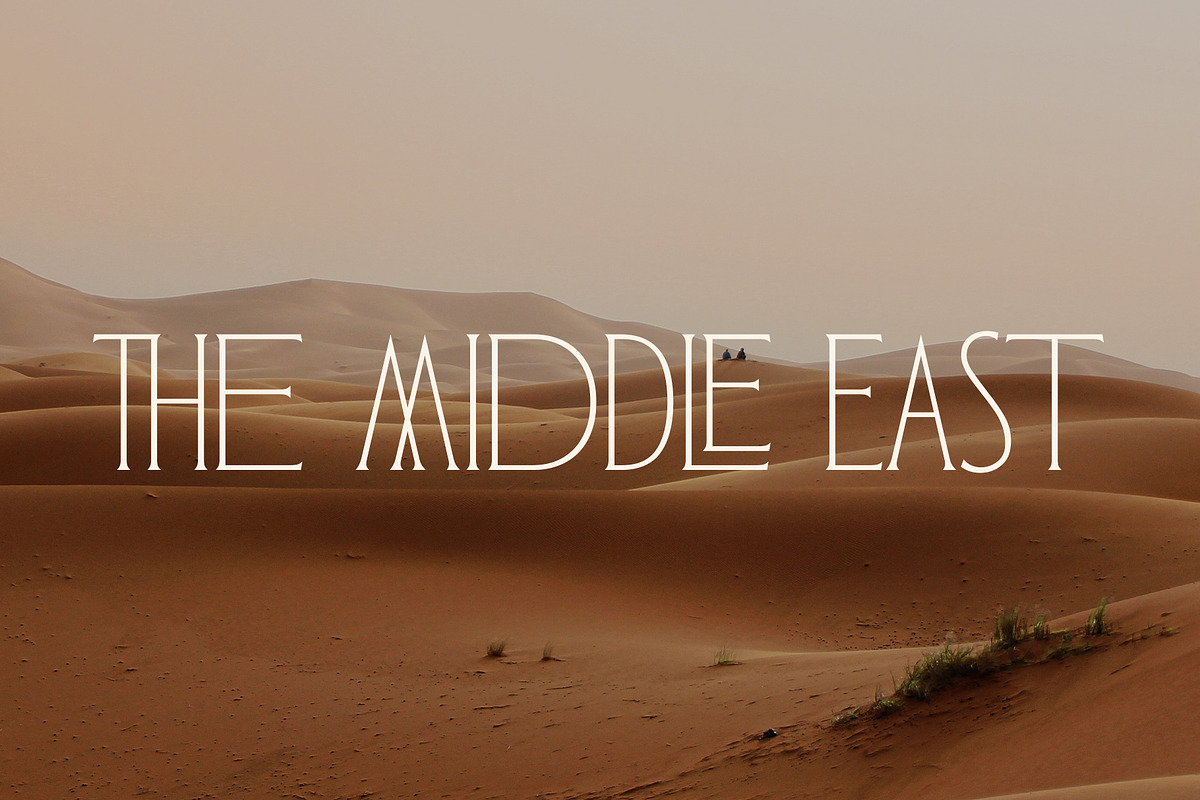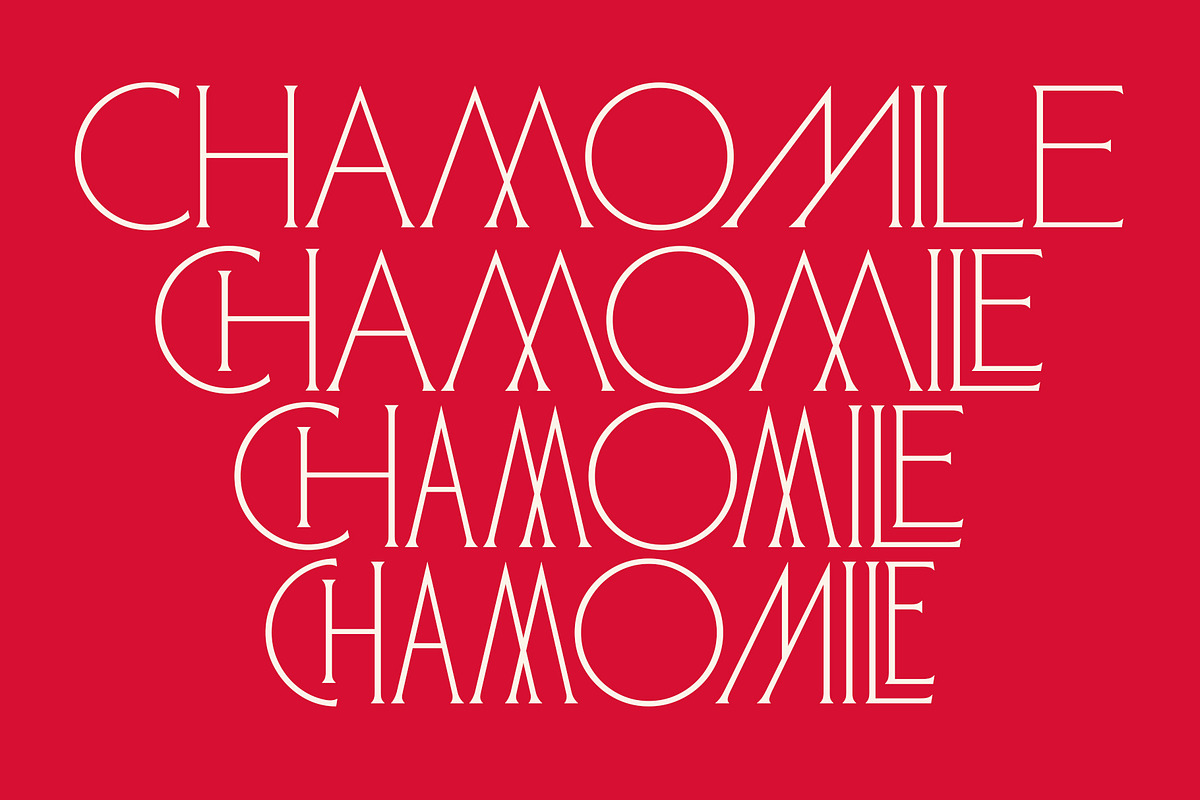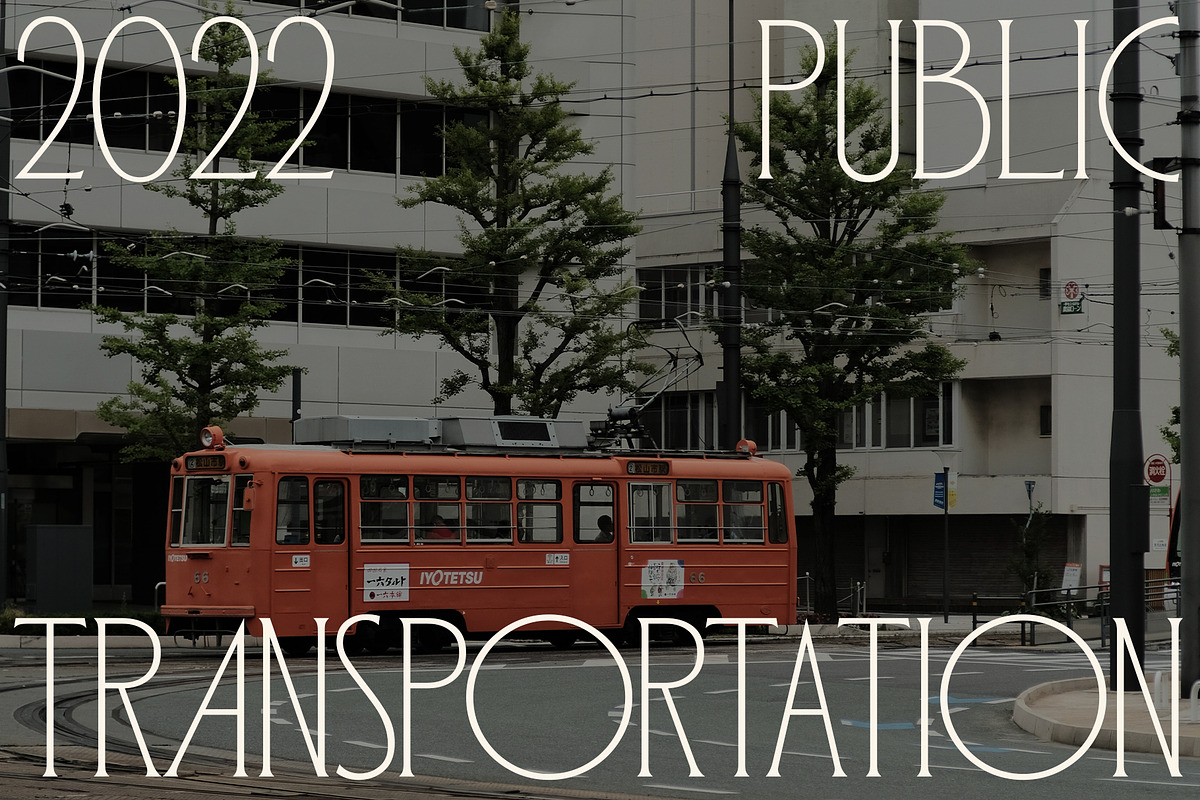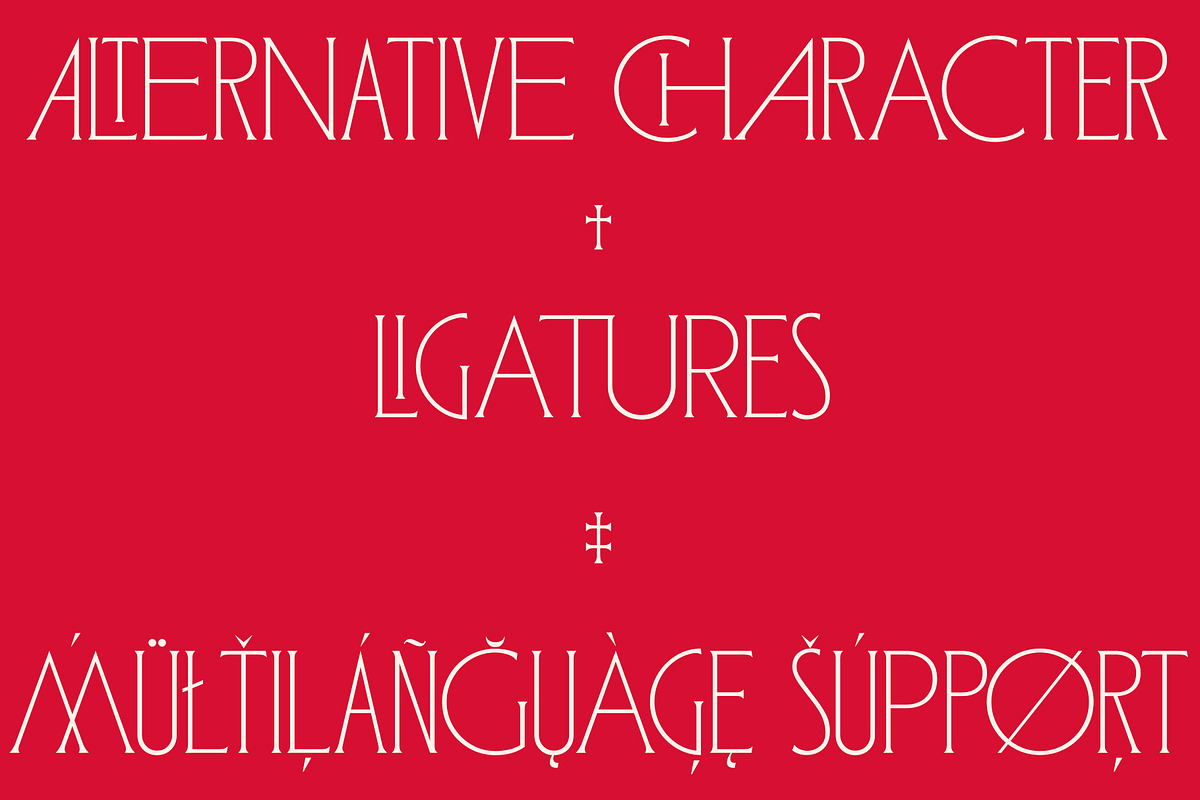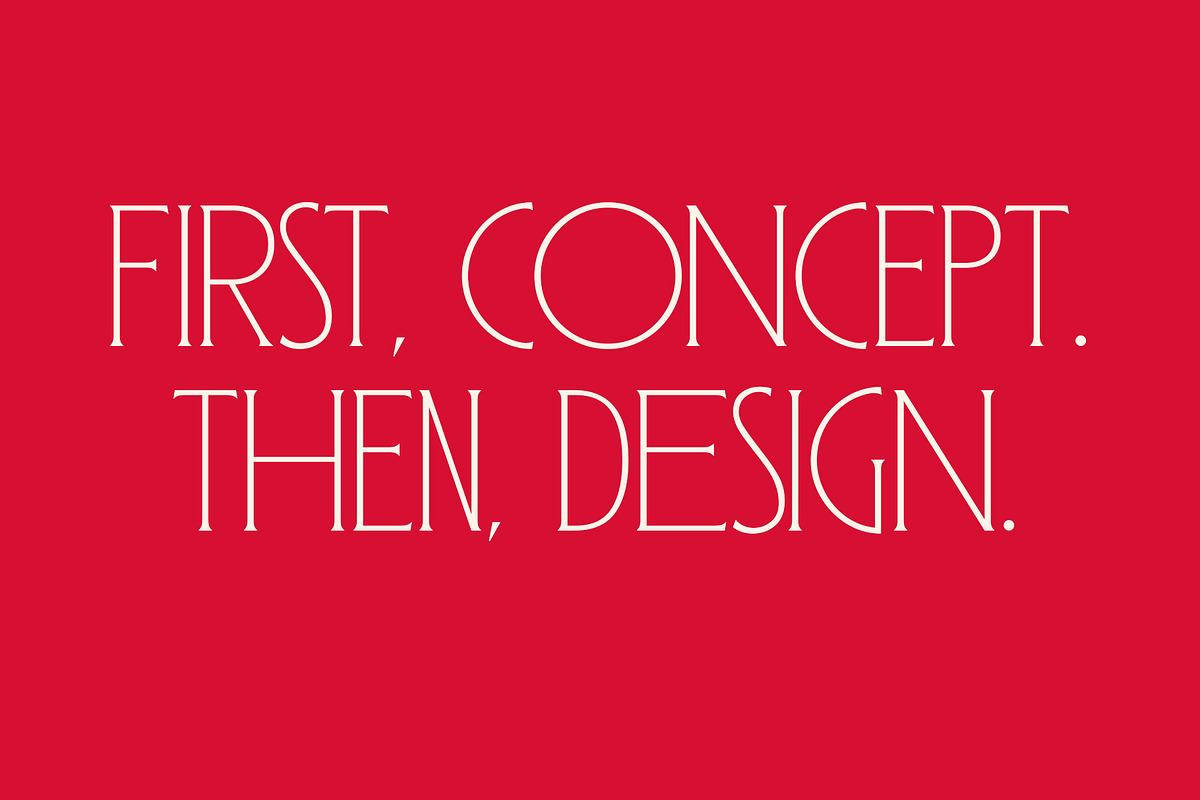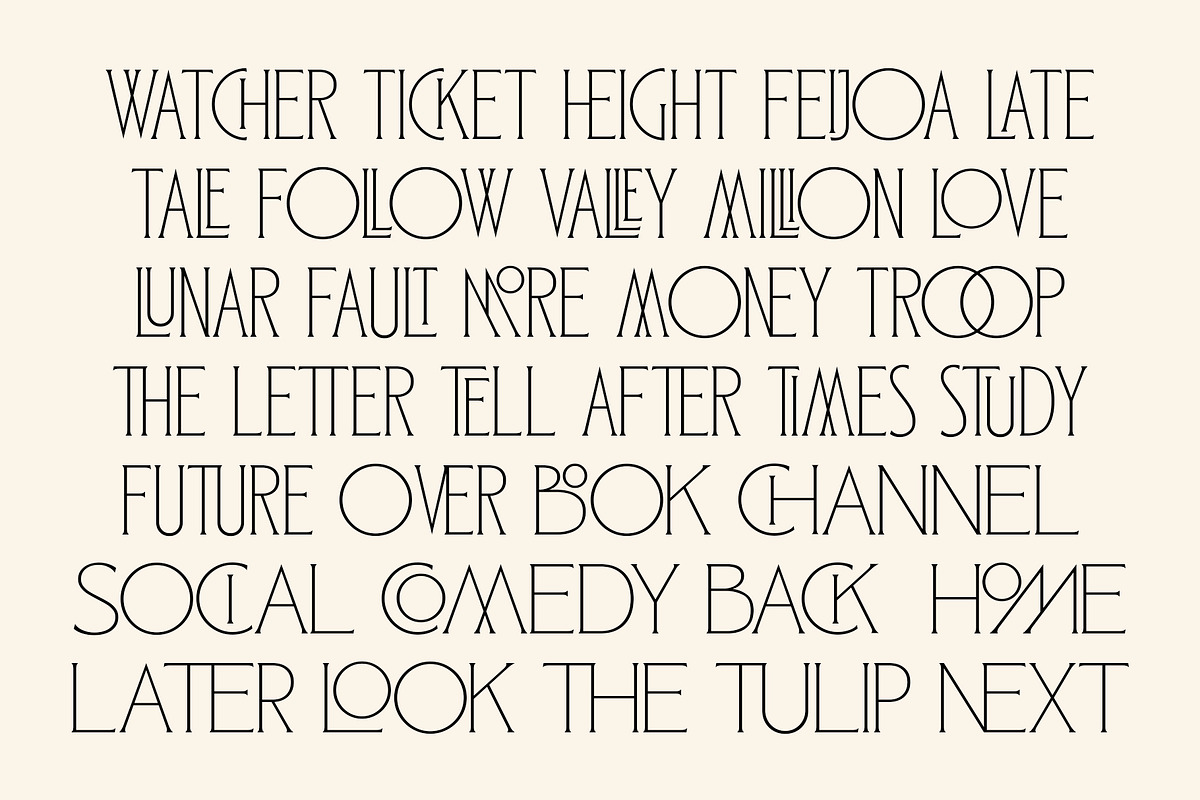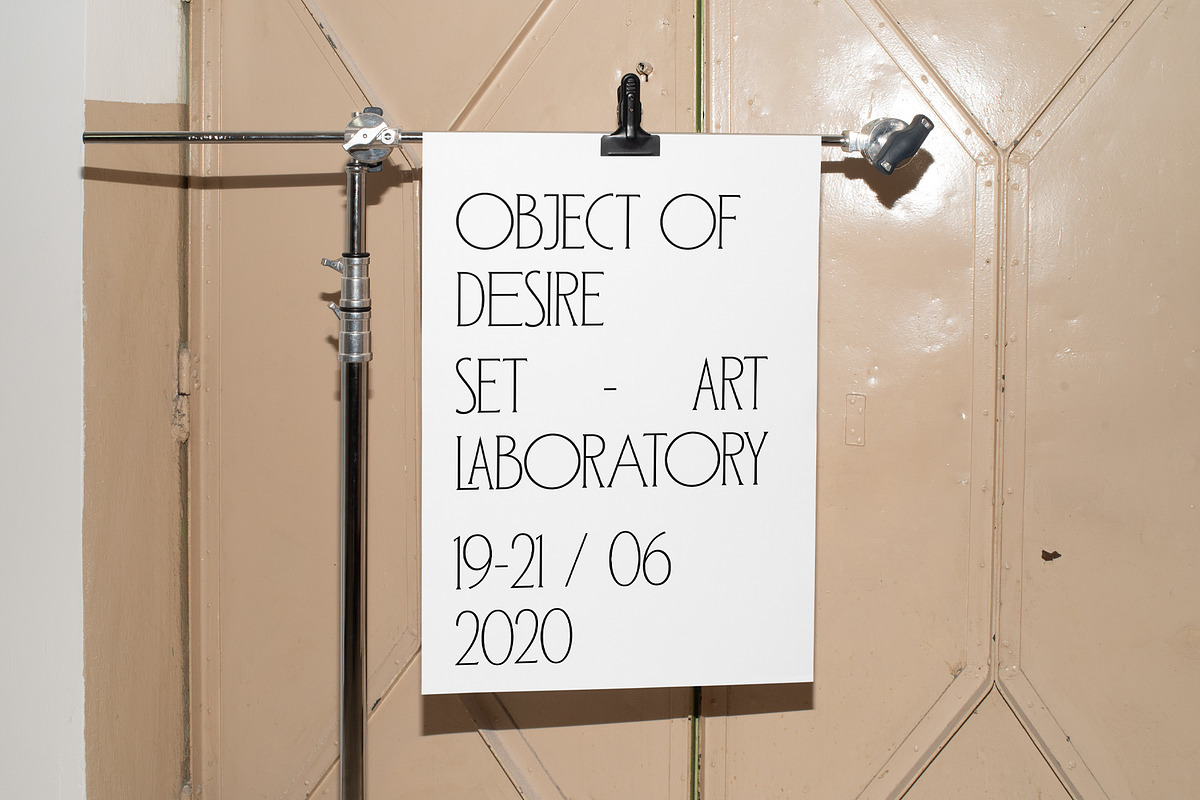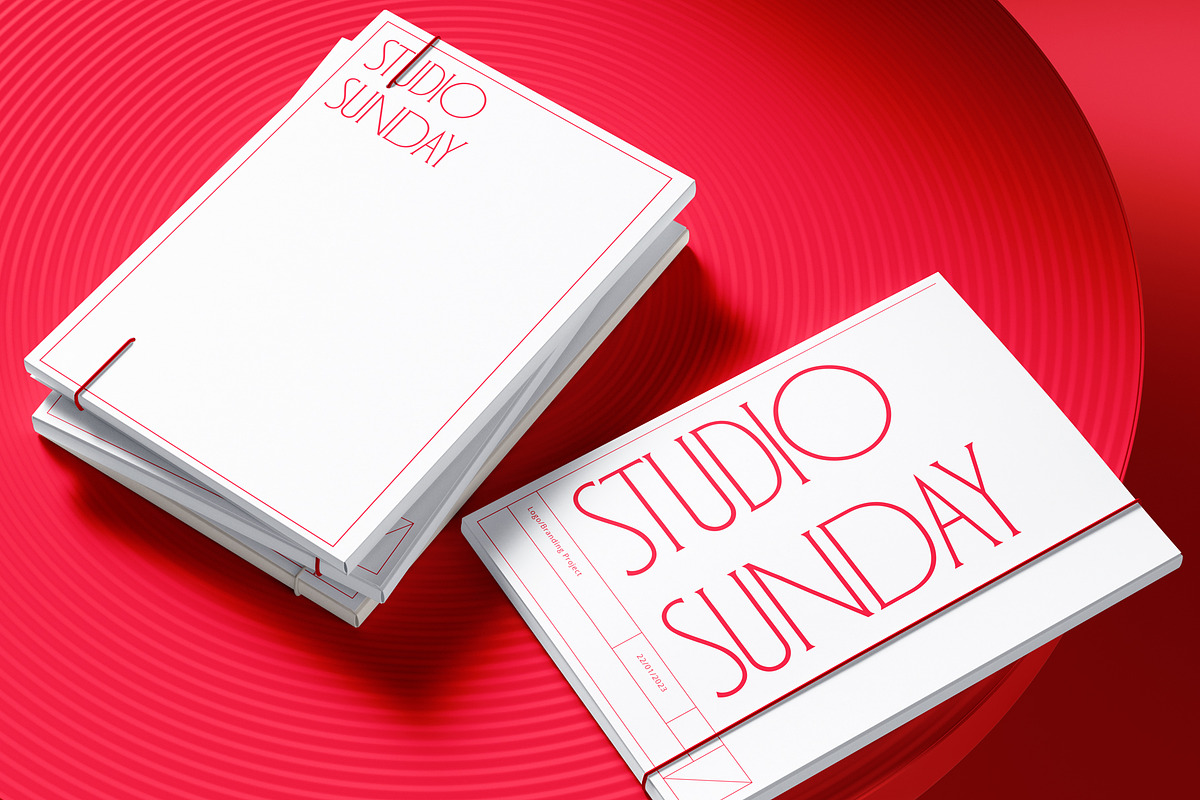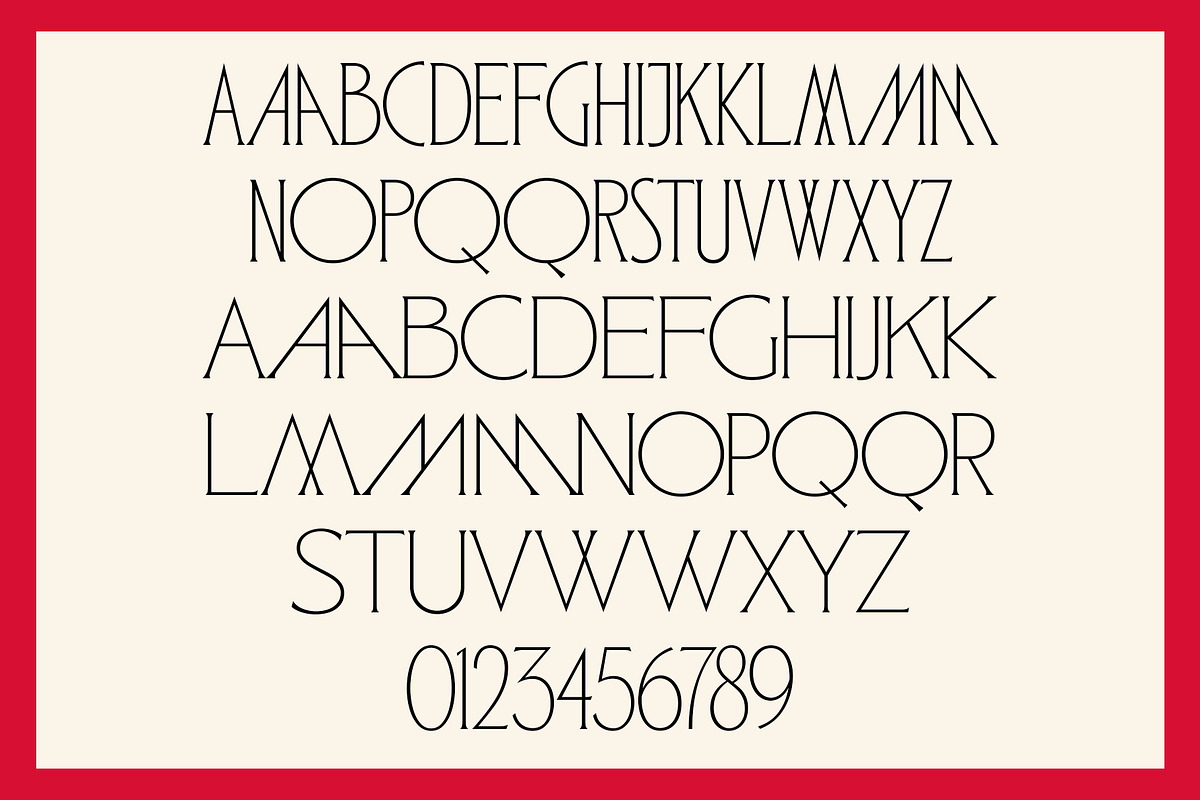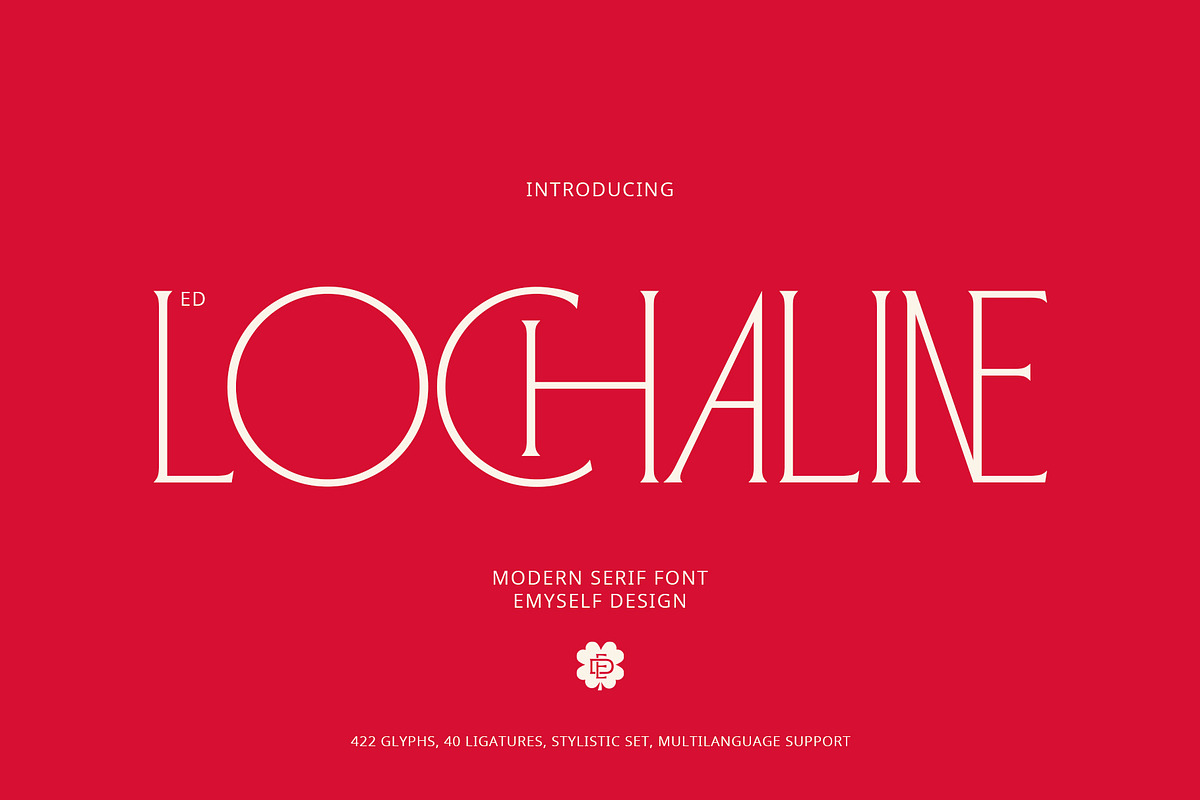
ED Lochaline
Lochaline is a modern serif font with a thin weight that is equipped with a unique ligature that can be used to add aesthetic value to the design. This font consists of capital letters. The difference is the width of each letter. Apart from that, this font is also equipped with alternate characters and multi-language support.
This font is perfect for your creative projects such as Logotype, printed quotes, invitations, cards, headers, letterheads, Apparel, Web design, magazines, books, etc.
- Total Glyph: 422
- Punctuation and Marks
- Contextual Alternative